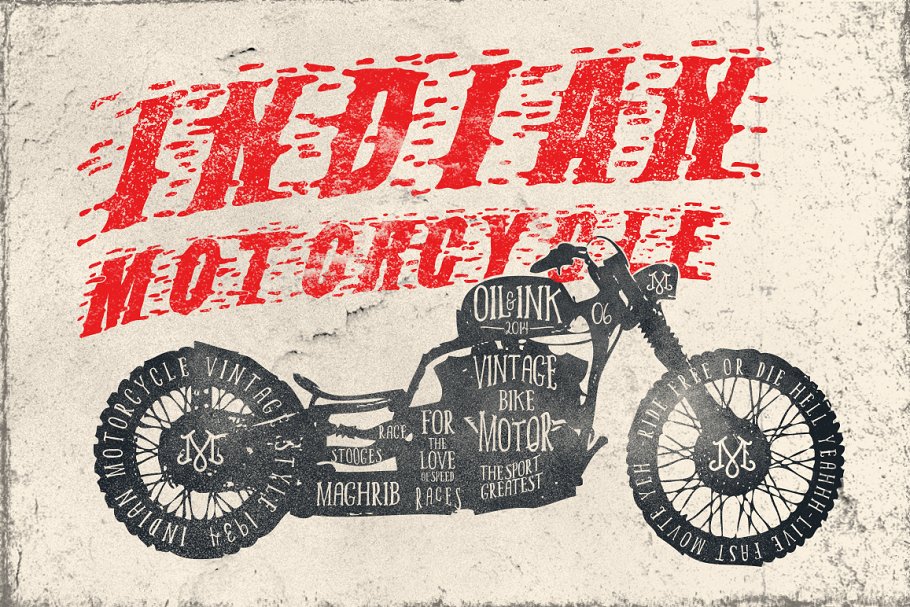
Stooges Races Font
The Stooges Races Font is known for its stylish appearance and is popular for its compatibility with Adobe software.
Style Of Stooges Races Font Free